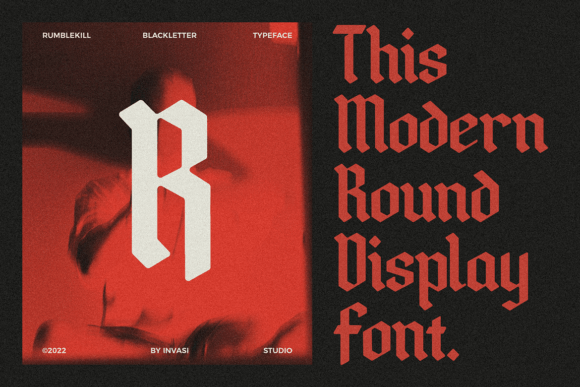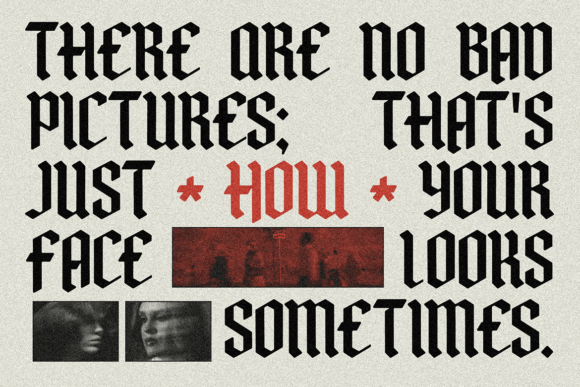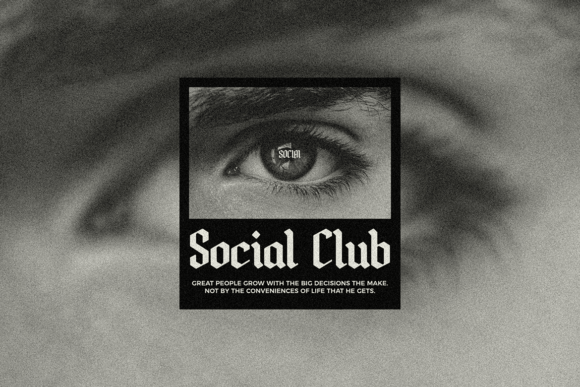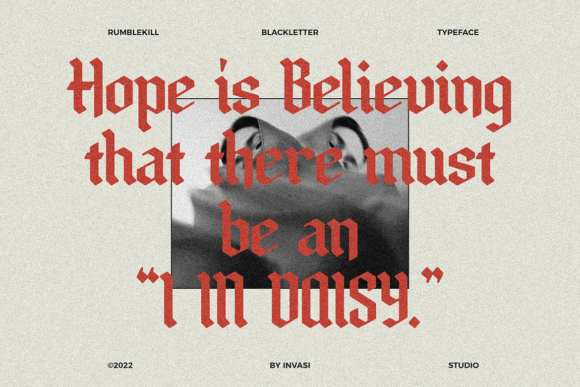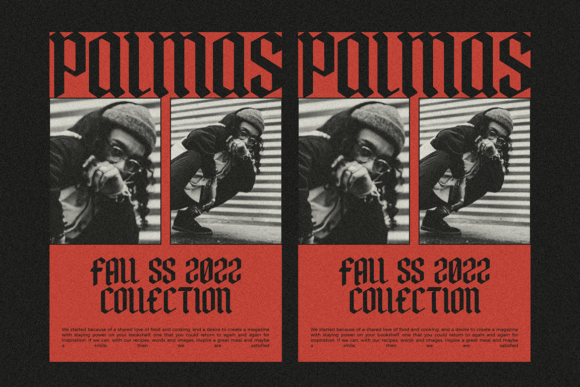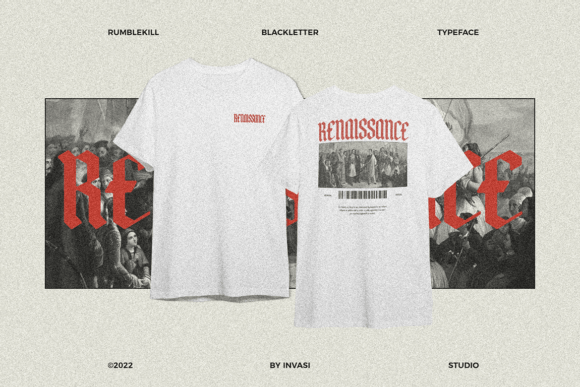
Introduction to Rumblekill Font
Have you ever stared at a blank canvas, feeling the urge to unleash your creativity and bring your vision to life? That’s exactly the moment when the right design resource can make all the difference. For designers seeking to add a bold, retro touch to their projects, we’re excited to introduce you to the Rumblekill Font – a stunning blackletter font that’s sure to inspire your next creative endeavor.
With its elegant, rounded aesthetic, the Rumblekill Font is the perfect addition to any design project, whether you’re working on a free download, a commercial campaign, or a personal creative project. Its versatility makes it an ideal choice for headings, flyers, greeting cards, product packaging, book covers, printed quotes, logotype, apparel designs, and album covers. And the best part? It’s available for high-quality use, complete with a transparent background, making it easy to incorporate into your design.
As a valuable design resource, the Rumblekill Font offers endless possibilities for designers looking to elevate their work and stand out from the crowd. So why settle for ordinary when you can add a touch of uniqueness and modernity to your projects with the Rumblekill Font?
Key Features of Rumblekill Font
- Unique, hand-drawn design ideal for creative projects and designs requiring a distinctive look.
- Perfect for designers and artists seeking a distinctive, high-quality design element for their creative project.
Honest Review: Rumblekill Font
As a designer, I’m always on the lookout for high-quality design resources to elevate my creative projects. The Rumblekill Font is one such find that caught my attention. Here’s my honest review.
- ✨ The Rumblekill Font offers a unique and edgy aesthetic that can add a cool touch to any design project.
- ✨ The high-quality design ensures that the font looks great on both screen and print.
- ⚠️ The font only comes in a few styles, which may limit its versatility for certain design projects.
- ⚠️ The transparent background can be a bit tricky to work with, especially for designers who are new to using transparent fonts.
Overall, I’m impressed with the Rumblekill Font’s unique design and high quality. While it may have some limitations, it’s a great resource for designers who want to add some edge to their creative projects. With a little creativity and experimentation, the Rumblekill Font can be a valuable addition to any design arsenal.
Tips for Getting the Most Out of Rumblekill Font
To get the most out of the Rumblekill Font, try the following:
- Use the font with a transparent background for a sleek and modern look.
- Combine the Rumblekill Font with other design elements to create a unique and creative project.